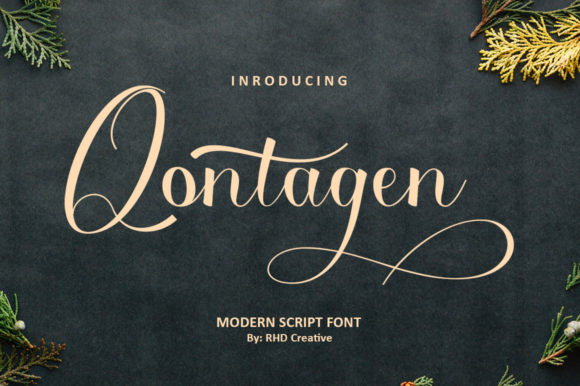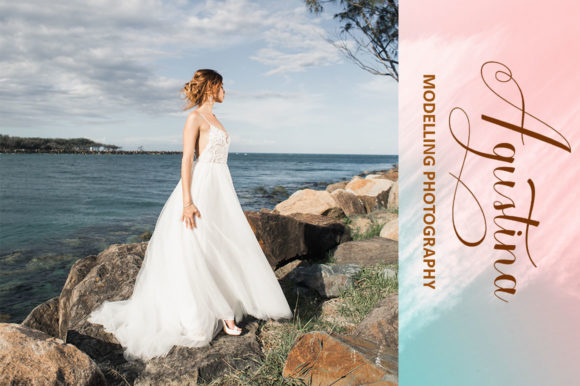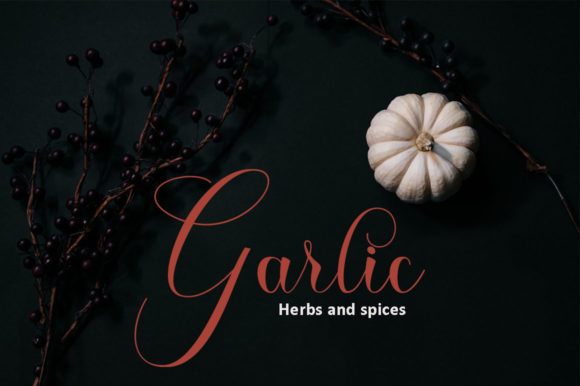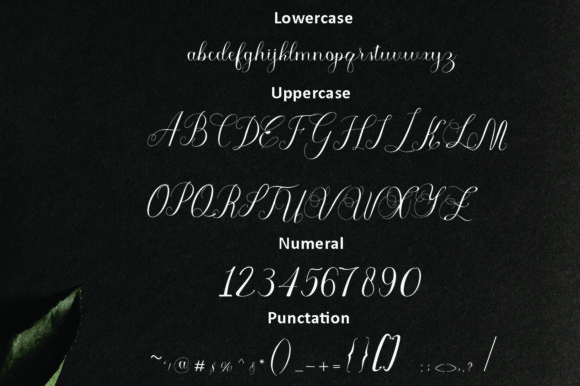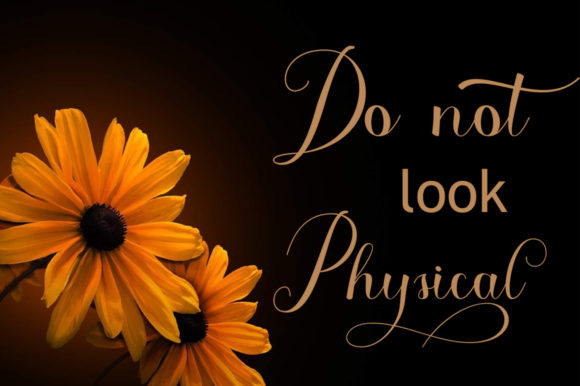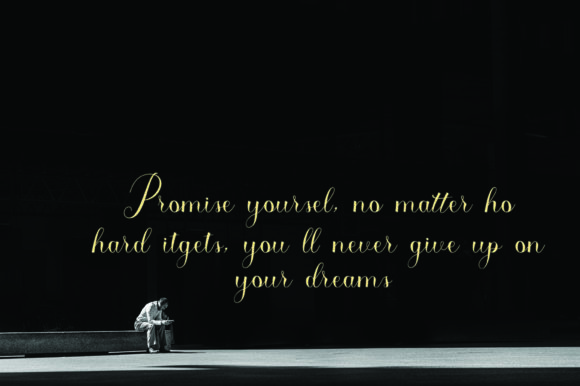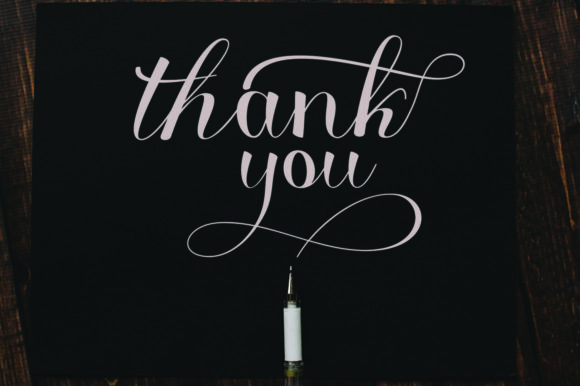
Qontagen Font
About Qontagen Font
Qontagen is inspired by classic typography and brings its own unique style to any design project. Use this gorgeous and unique script font to bring any DIY project to life!